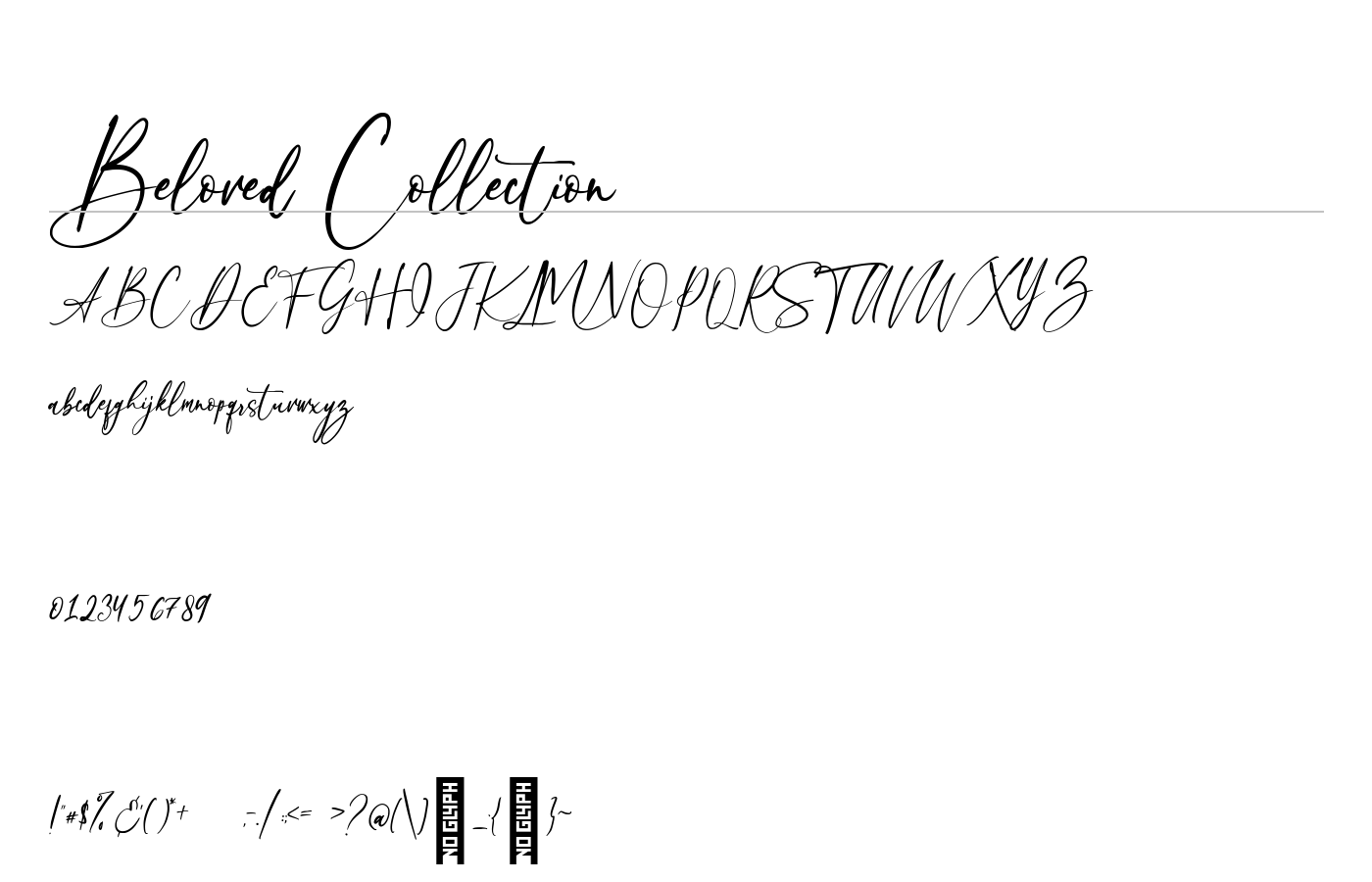
Beloved Collection is a delicate, elegant script font with a light weight and flowing, handwritten style. Its tall, narrow letterforms and graceful strokes give it a romantic and sophisticated personality, making it ideal for wedding invitations, branding, and luxury packaging. The font’s airy, connected letters create a personal, stylish touch perfect for headlines or decorative text rather than long body copy.
Beloved Collection Font